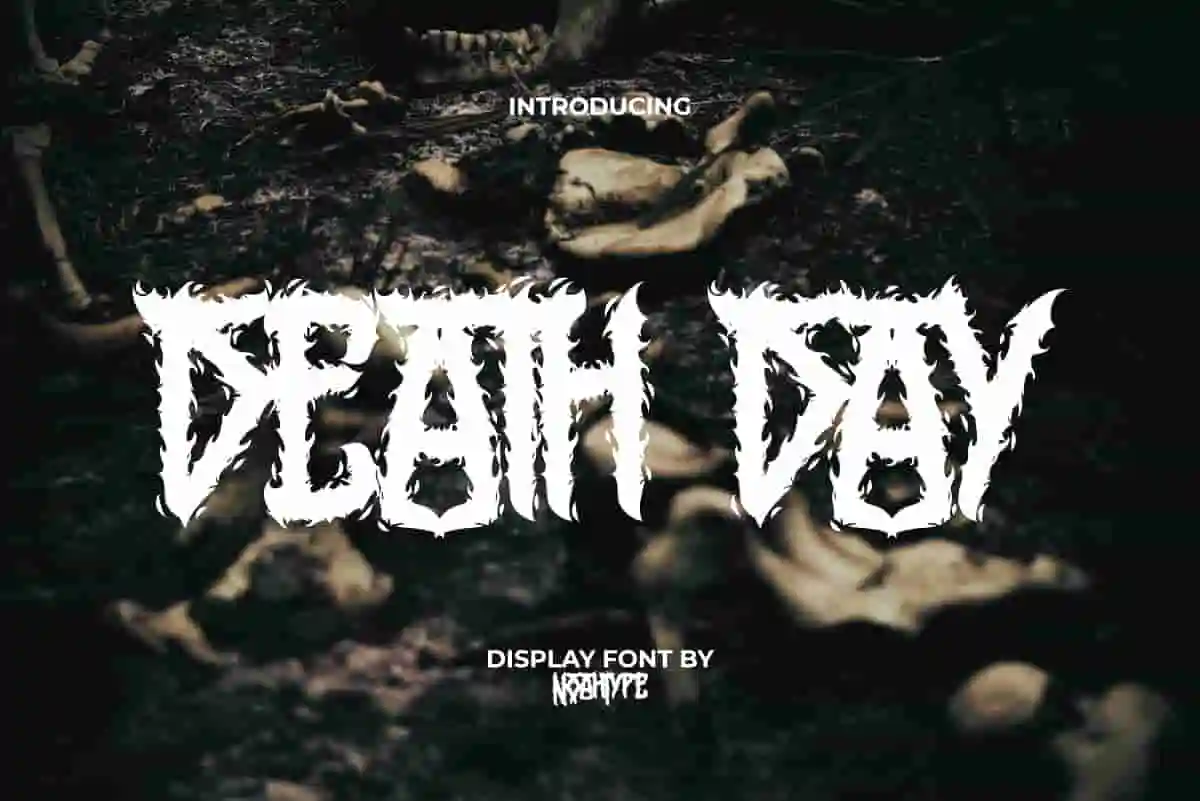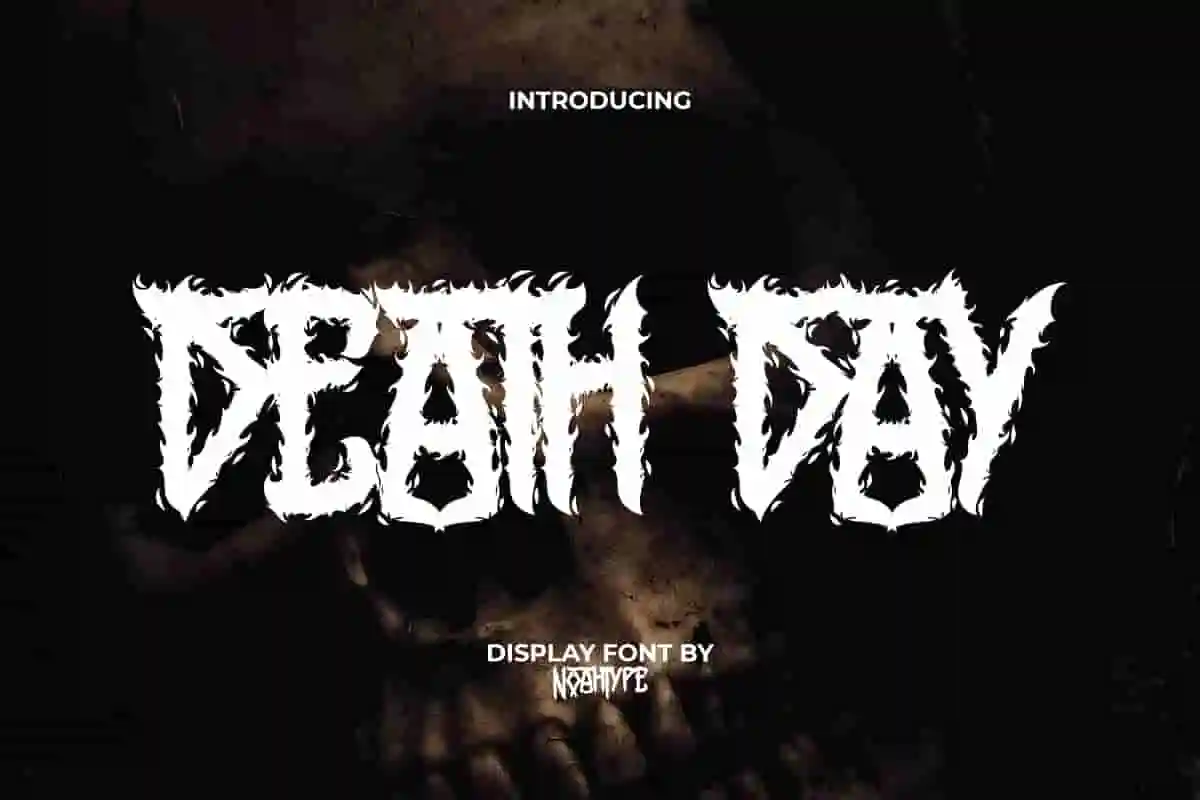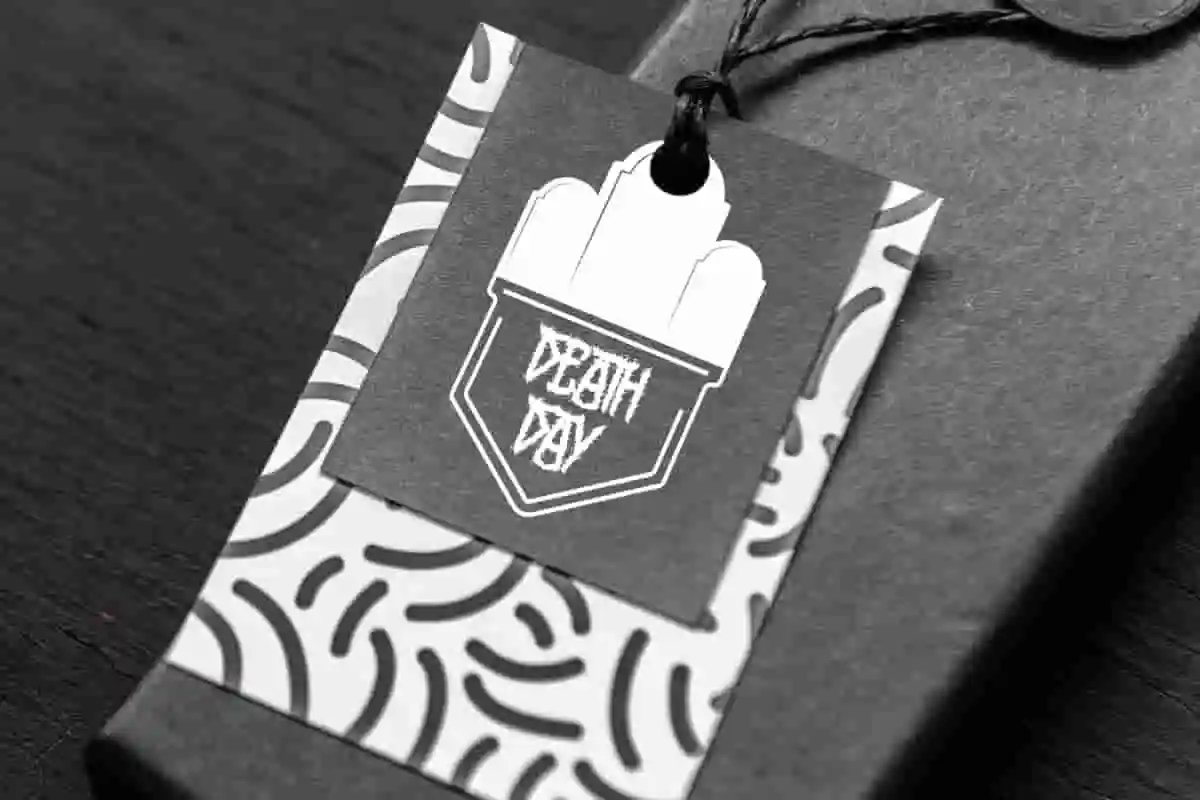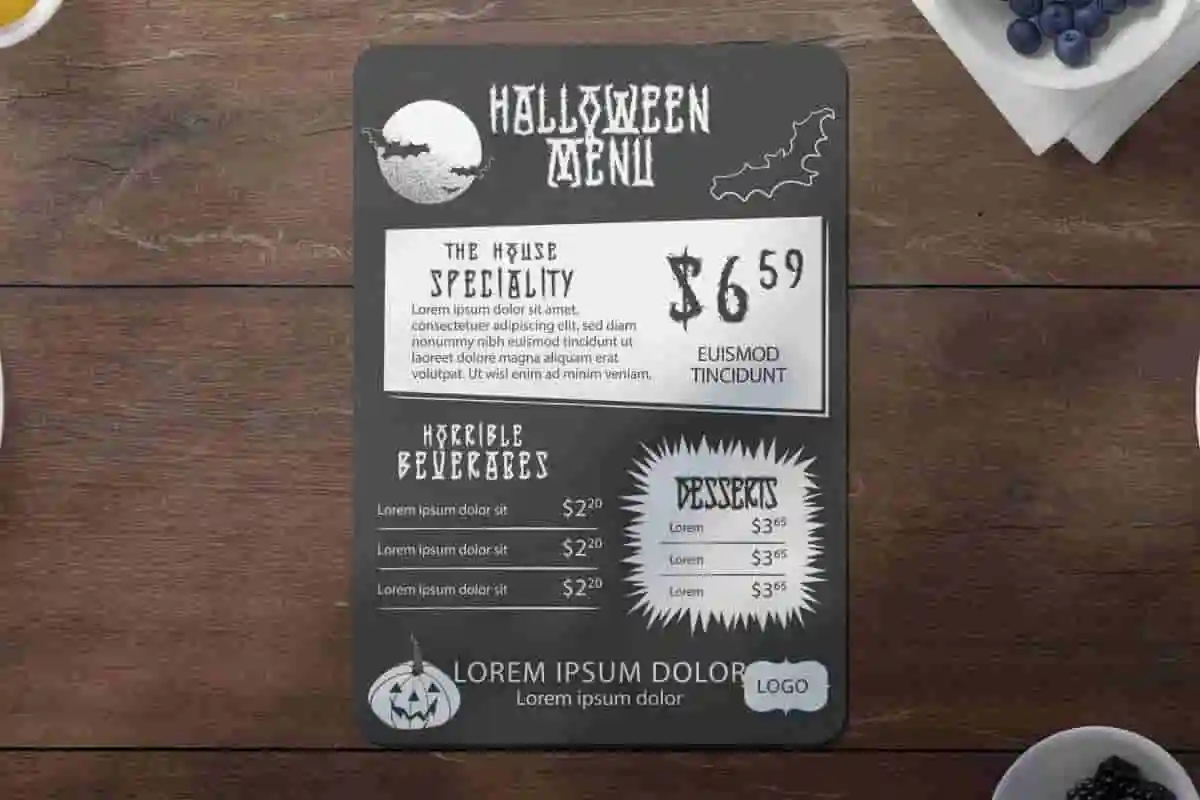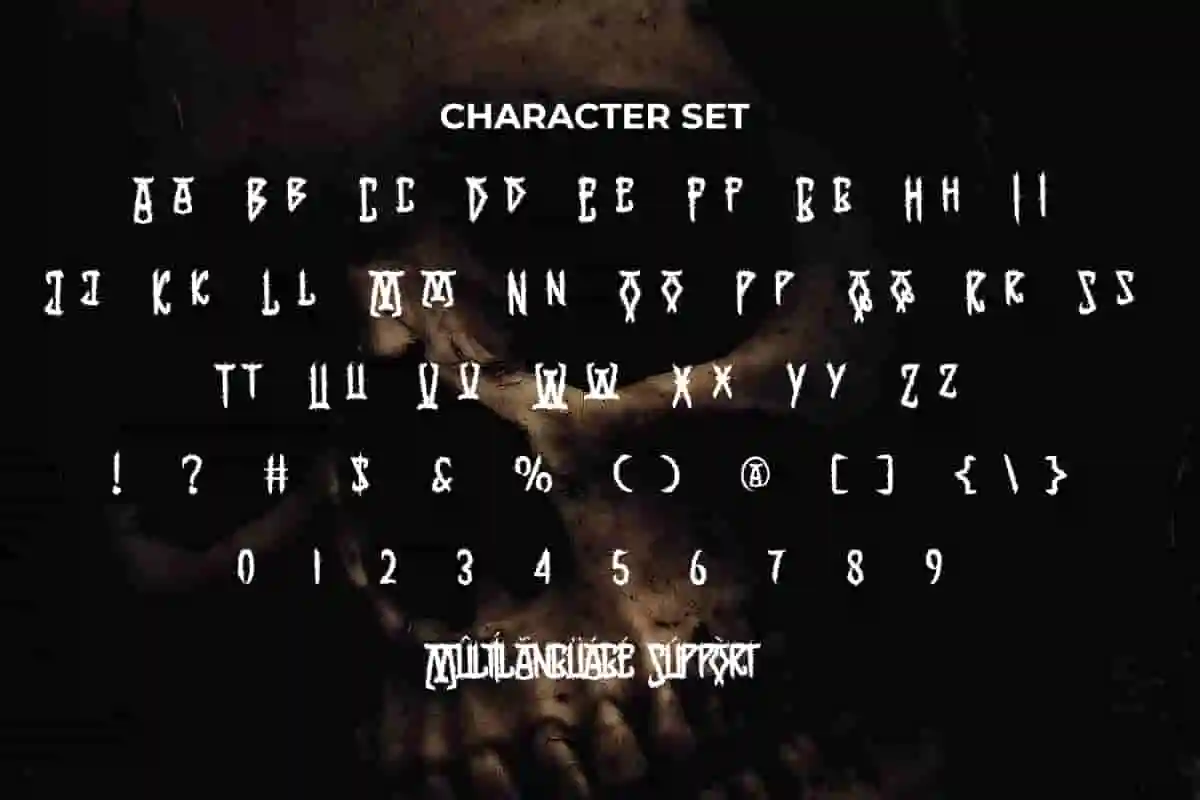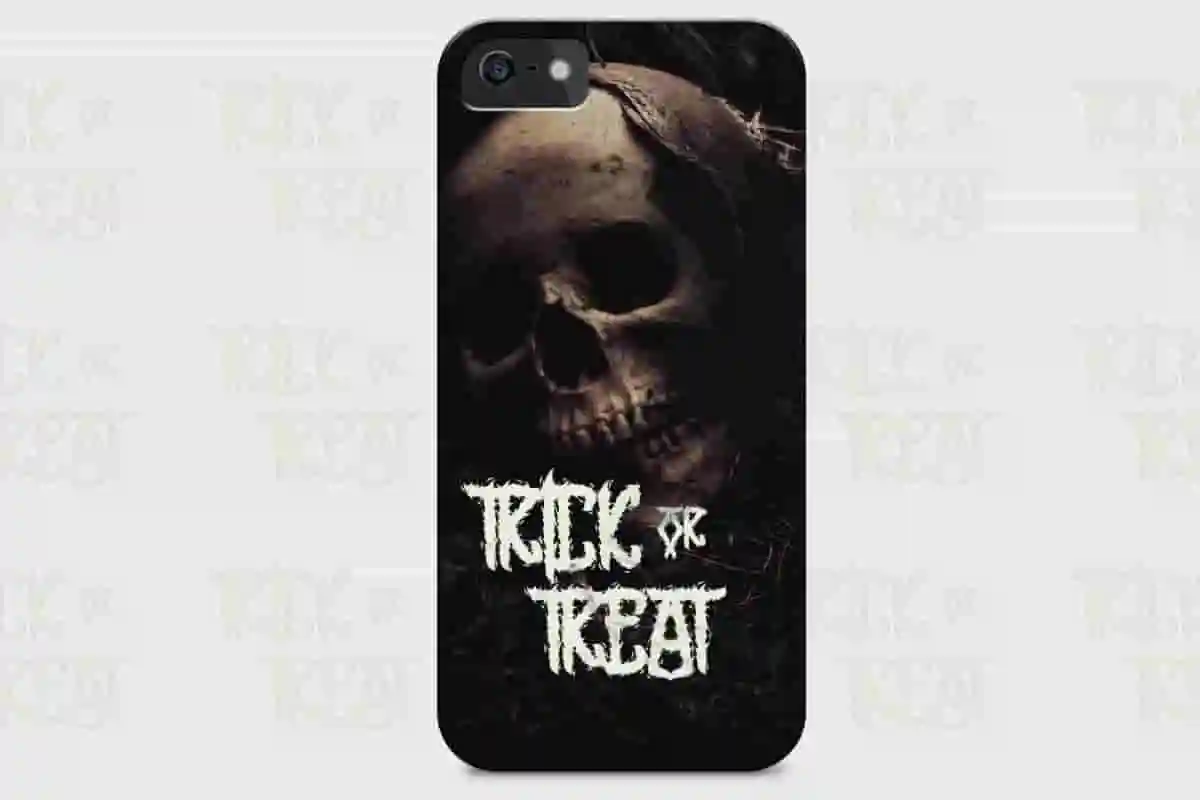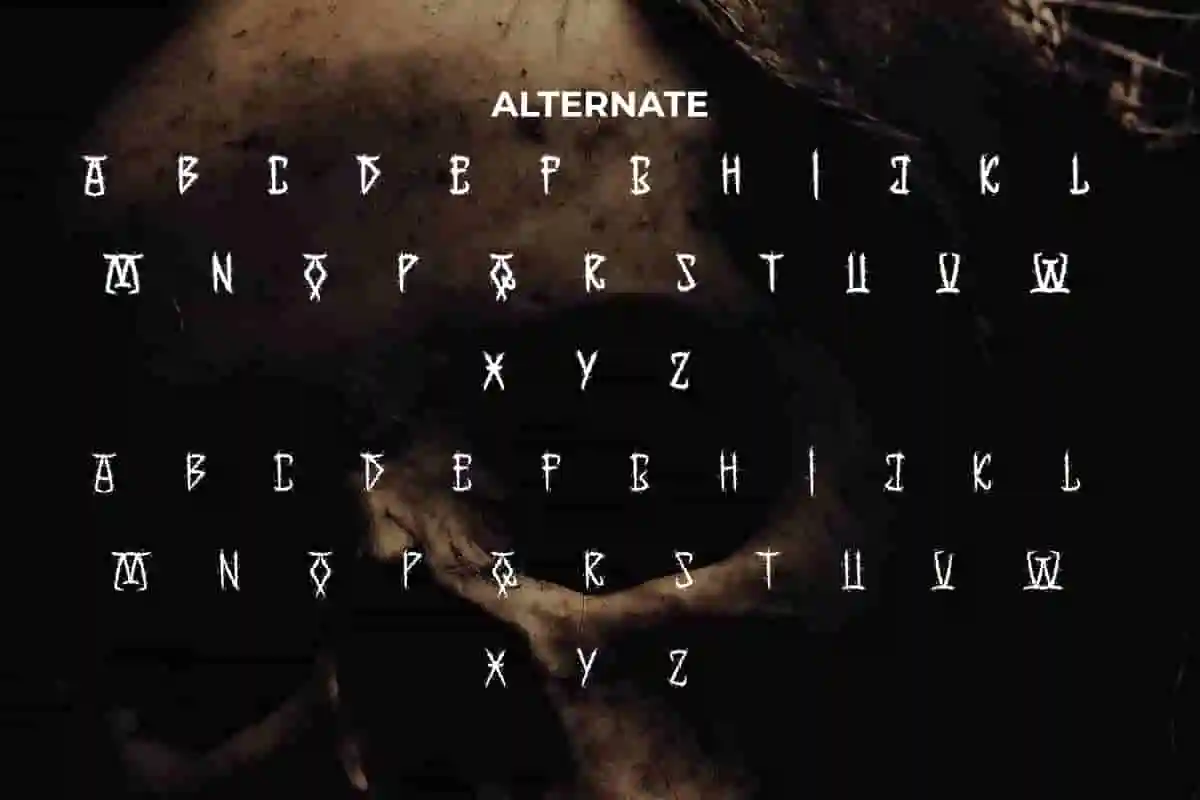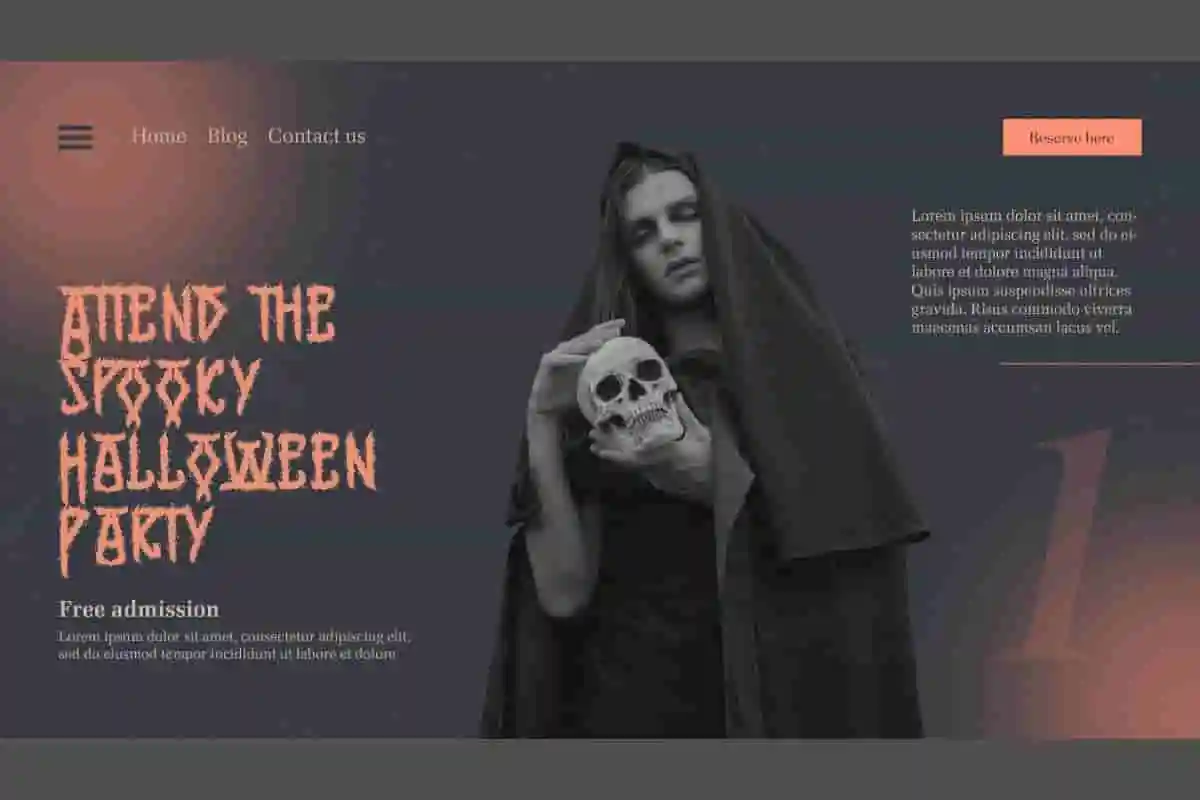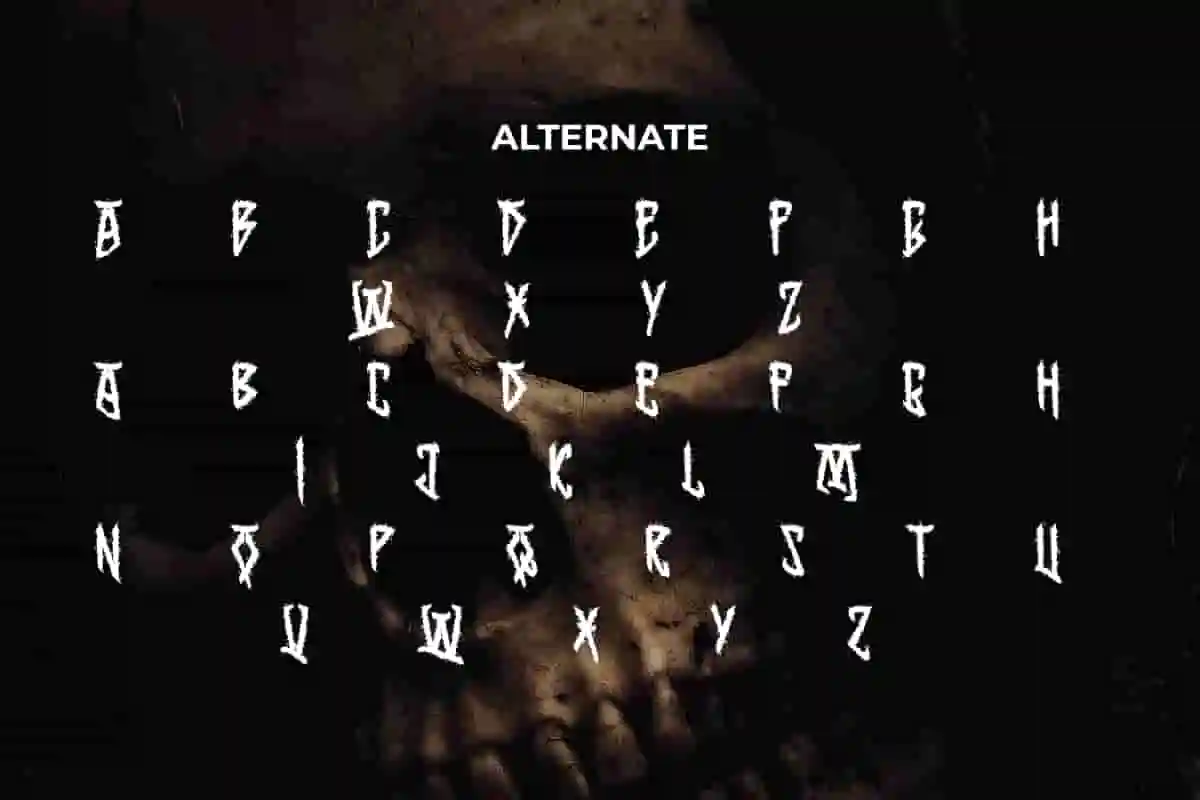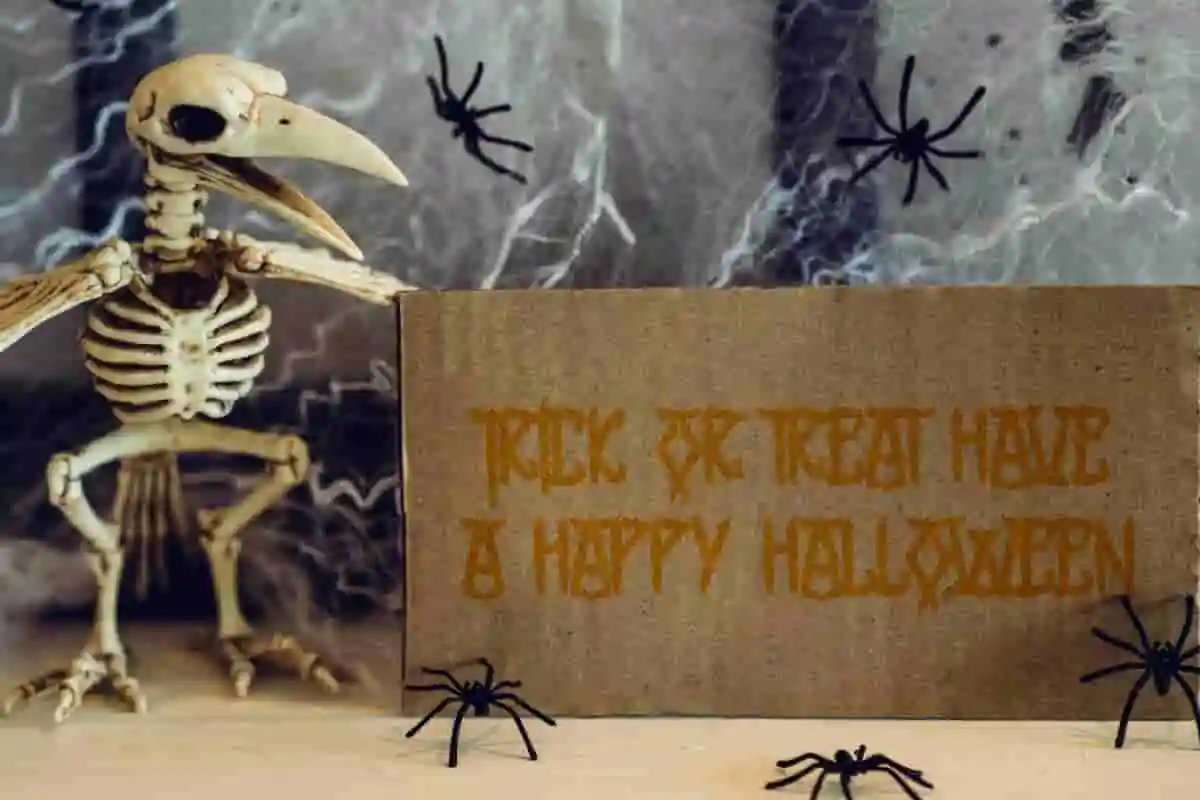
Death Day Font is a dreadful hardcore black metal font with rock scary style by NoahType. This font can give a strong impression of death so that your design looks scary and impressive. It will be perfect for any designs, such as brand image, custom design, invitation, label, marketing material, menu, poster, printing, product packaging, quotes, signage, website, and many more!
Death Day Font includes full set of ALL CAPS for Uppercase and Lowercase Basic Characters in similar shapes but different sizes, Numerals, Punctuation, Symbol, and Alternate characters. This font will give awesome touch and also a perfect choice for many industries, such as accessories, advertising, art, café, game, movie, printing, publishing, etc.